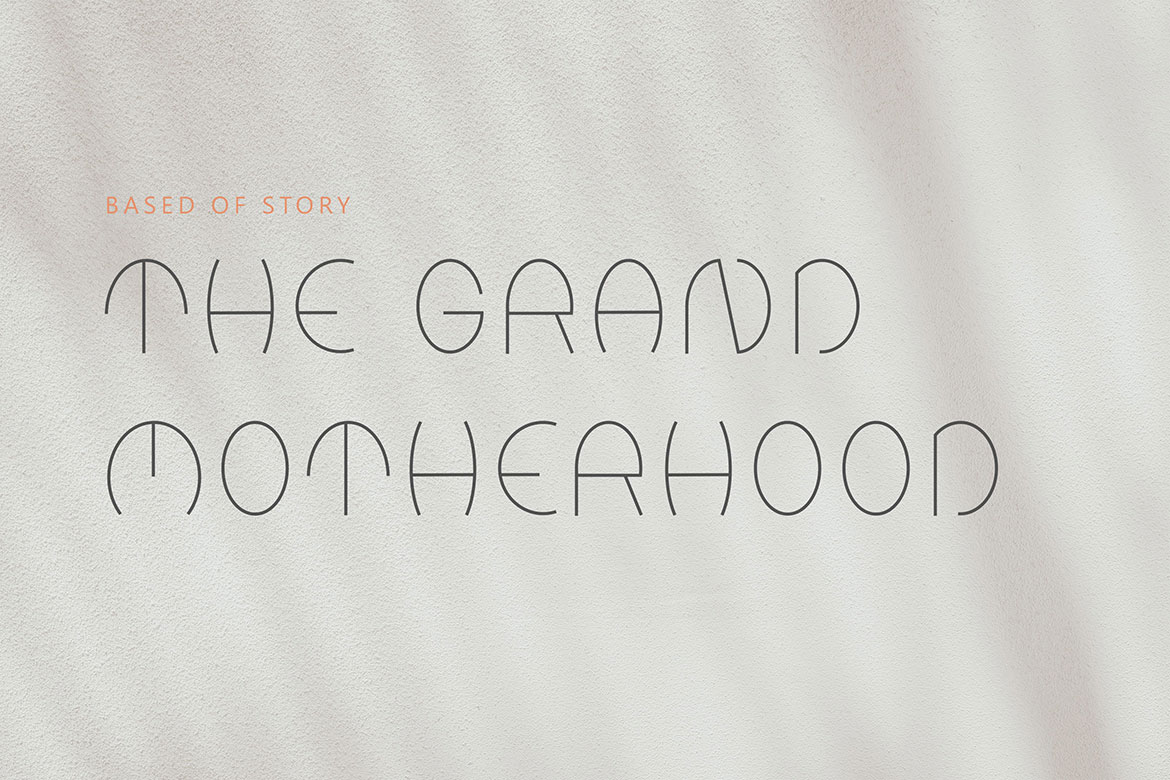
Introducing Kinders – Thin Linear Font by KrakenBox
Kinders is a Thin Linear typeface with elegant in every single letter. This font looks modern, readable, stylish, catchy and easy to use.
**Kinders is best for:**
– logos, branding, & Signatures.
– Flyers, Album cover, Magazine, & Advertisements.
– Website design , design blogs, & fashion.
– Quote graphics for social media.
– and also it works great for other projects.